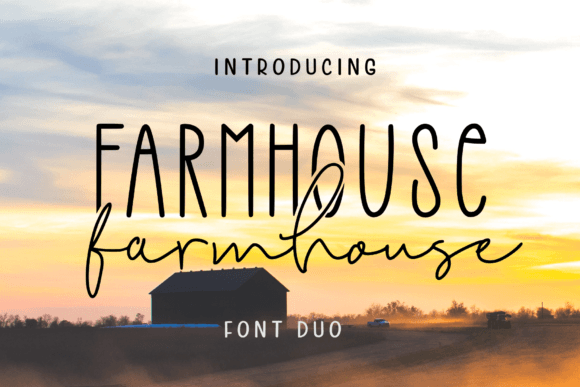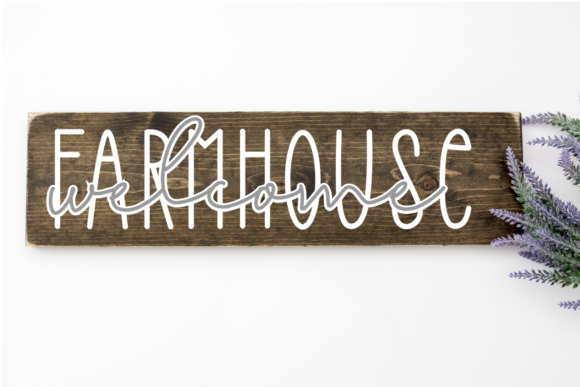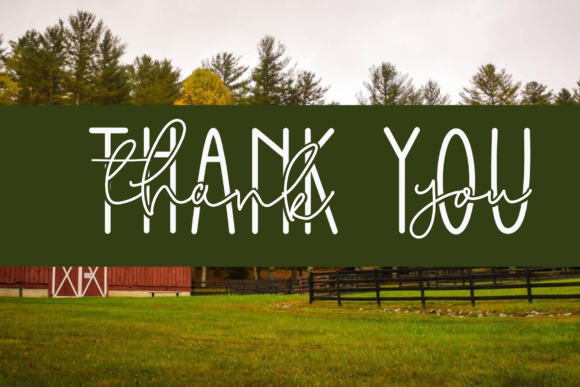
Farmhouse Font
Farmhouse is a simple and thin handwritten and sans serif duo font. Whatever the topic, this font will be a wonderful asset to your font library, as it has the potential to enhance any creation.